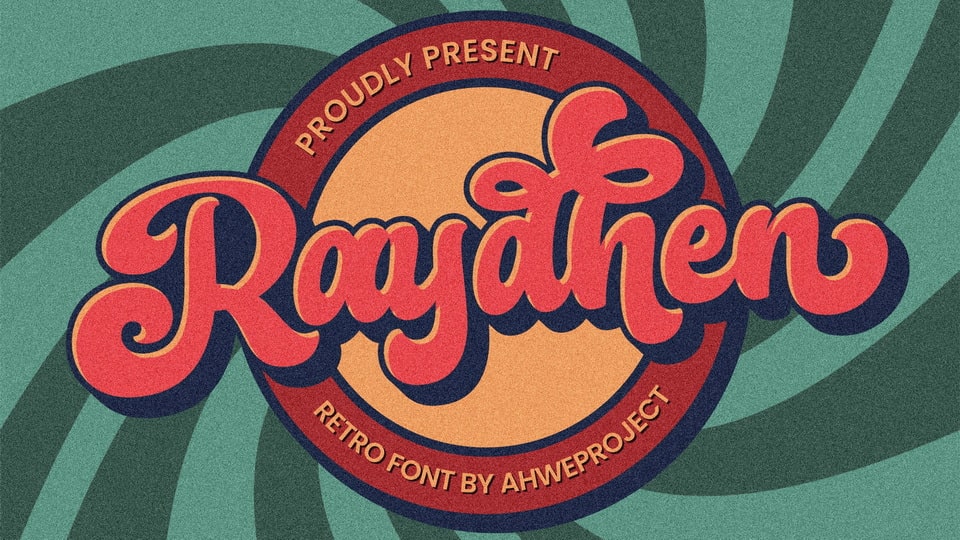
Download Raydhen font, a fun, retro-style script that is ready to take your designs to the next level. Add it to your vintage-inspired posters, stickers, apparel, or social media posts and you will definitely impress your audience.